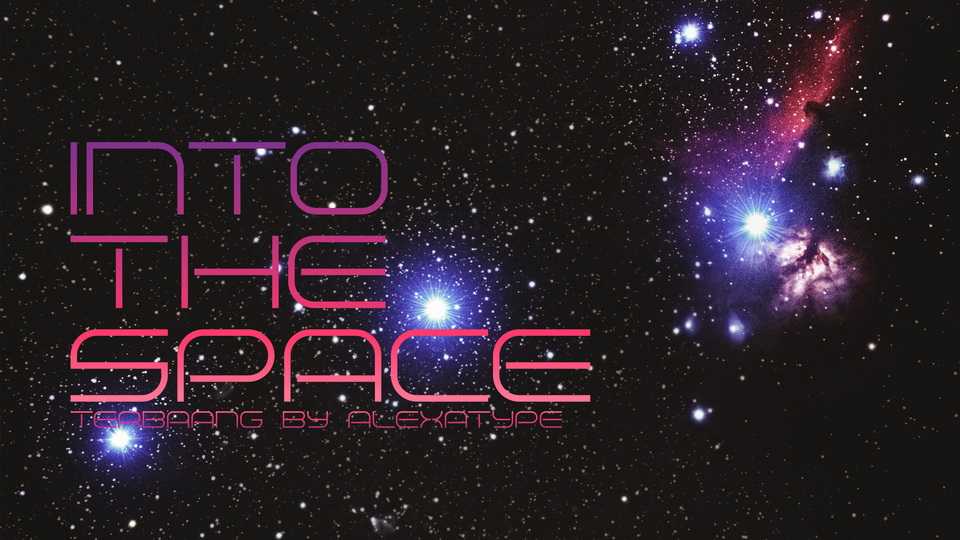
Download Terbaang font, a wide geometric typeface with thin lines, reflecting the modern technology and future. Perfect for high-end article headline, space, and digital related project.
Designer: Alexatype